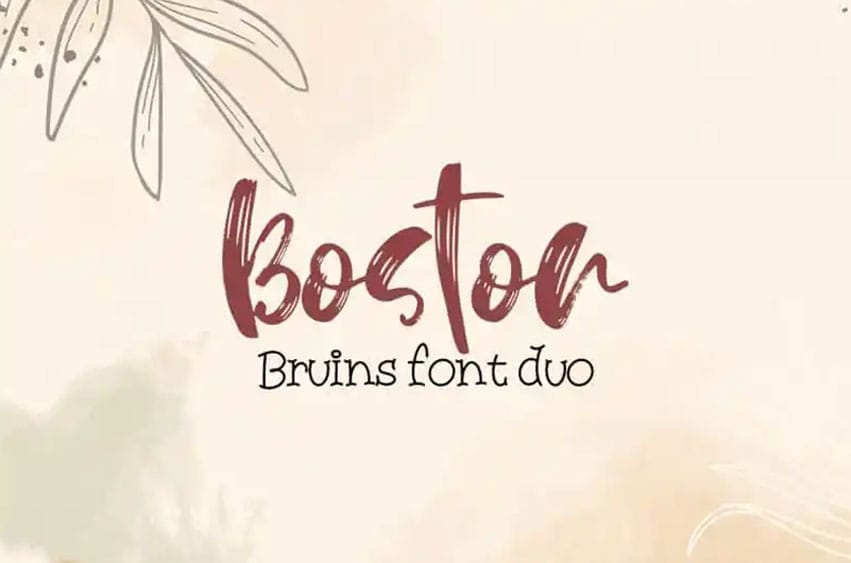
Boston Bruins Font duo is a high quality Script font that is designed by Alexander and is available for free download and personal use.
The free version provides all uppercase and lowercase letters and a few special characters too.